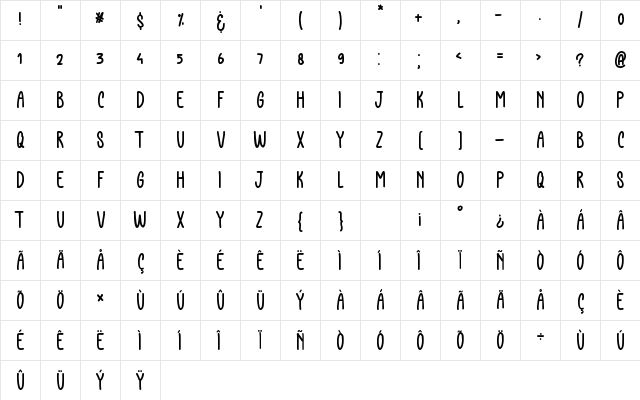
Father Farmhouse Sans Regular
Design Context for Father Farmhouse Sans Typeface
Father Farmhouse Sans is a composed and adaptable typeface that performs quietly and consistently across a wide range of design contexts.